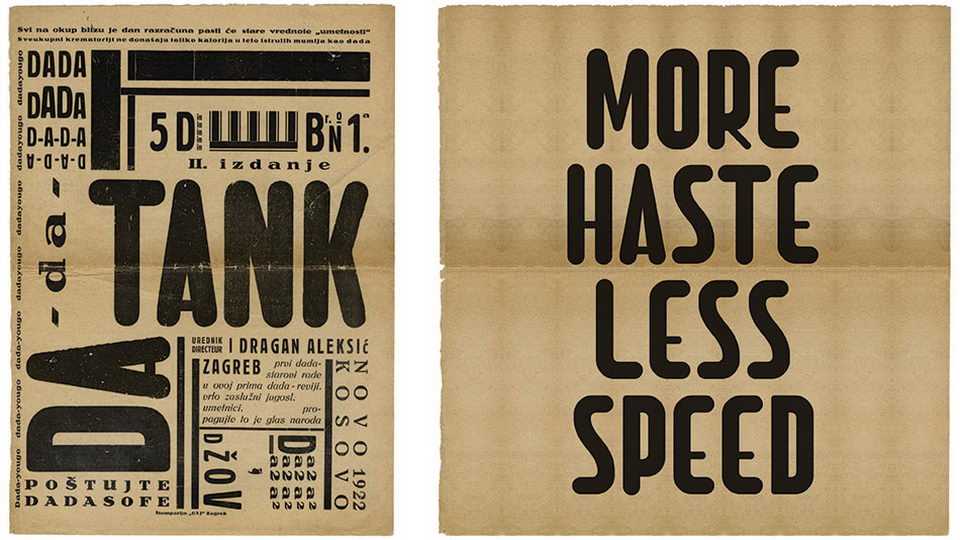
Download Dada Tank font, a narrow, rounded display typeface with a curious combination of thick and thin strokes. The alphabet was designed in response to the title lettering on Dragan Aleksić’s 1922 “international Dada review.